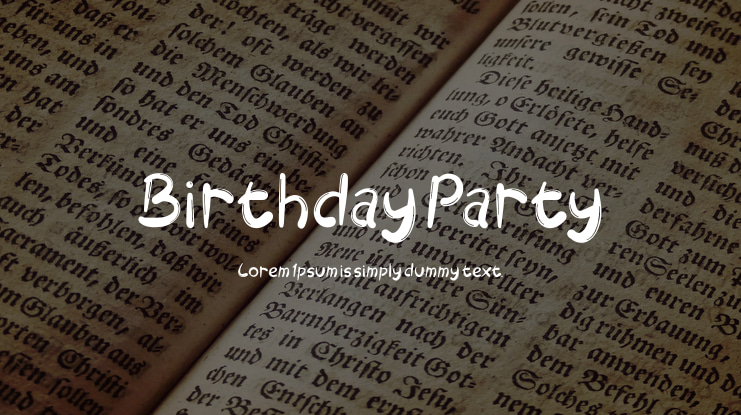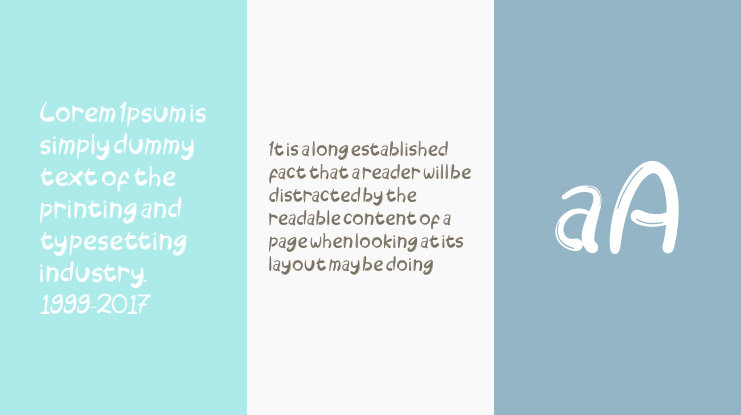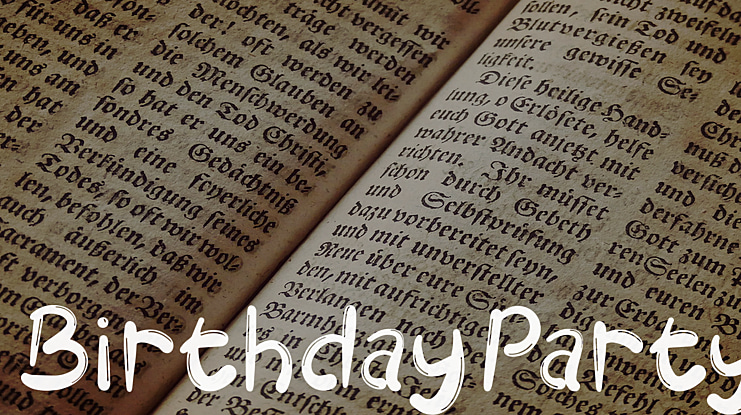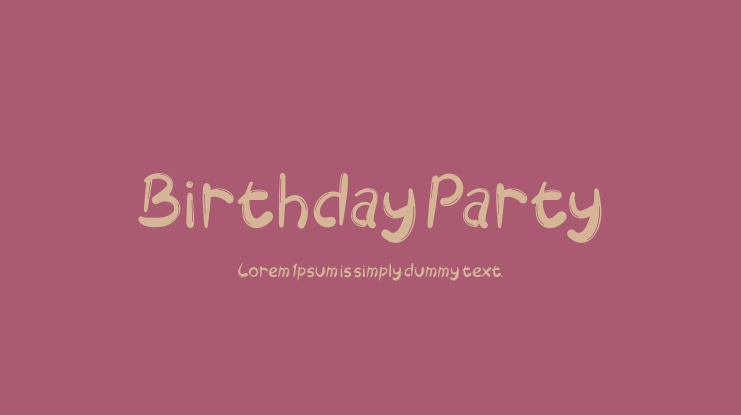
Birthday Party Font
"Birthday Party" is a playful handwriting font special for childish display,that puts a smile on your project and will inspire you to create something fun and memorable.It is perfect for greeting card, headings, flyer, product packaging, book cover, printed quotes, logos, etc.
"Birthday Party" will help you to create special and touching typographical design for childish projects, for every day or the happiest day in life, summer vacations, baby shower, happy birthday cards and many more. It is really universal and modern font.
The owner of endless possibilities!